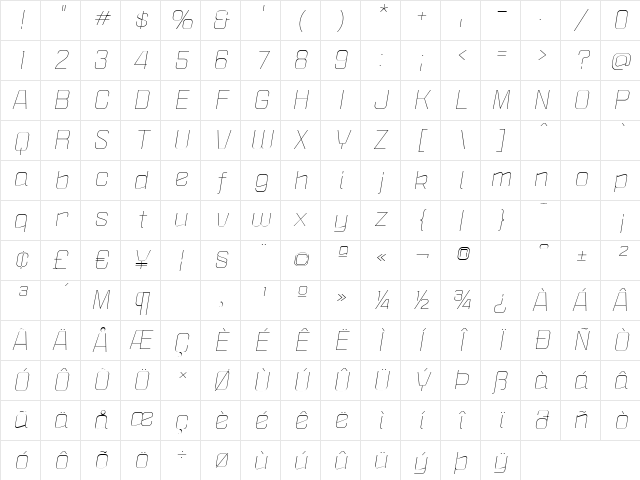
Complete Politica XT Light Italic glyph index. Displaying only characters natively supported by Politica XT Light Italic font.
Politica XT is a composed and adaptable typeface that performs quietly and consistently across a wide range of design contexts. The slanted form adds forward momentum and visual energy. Its slender proportions lend an understated elegance to any composition.
Pro Tip: Use Politica XT for emphasis, pull quotes, and subheadings where its slanted energy can add rhythm to the layout.